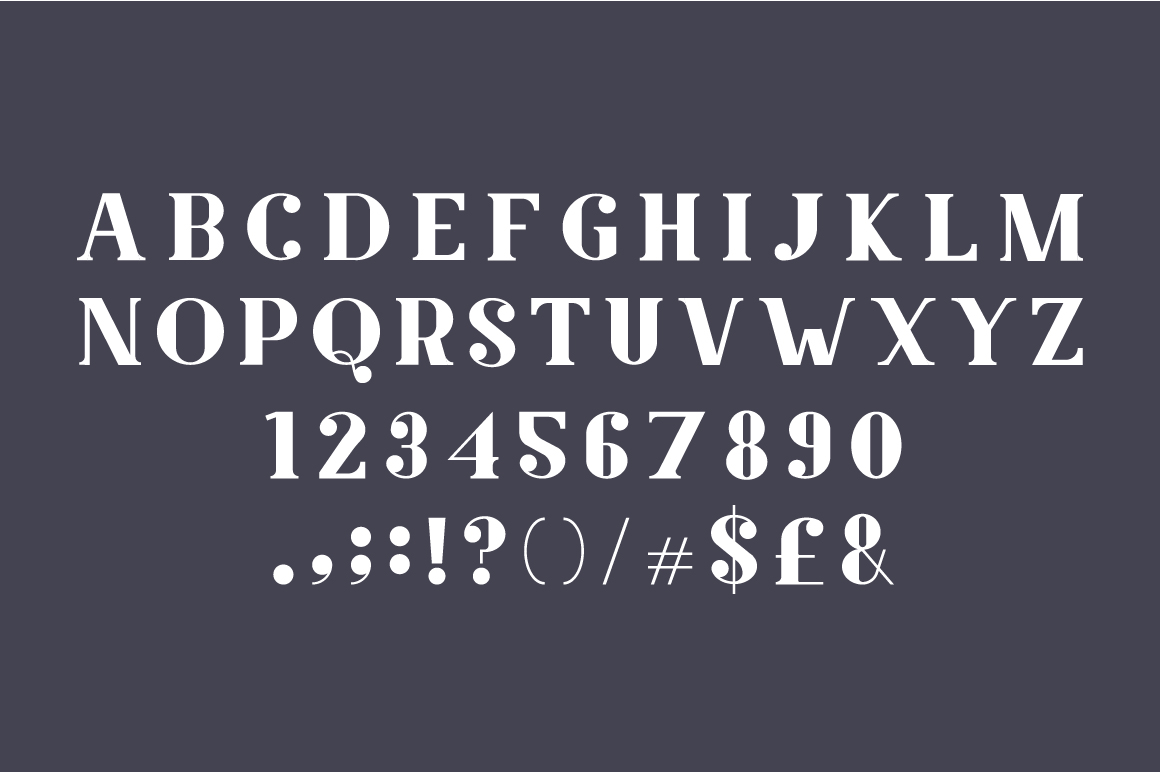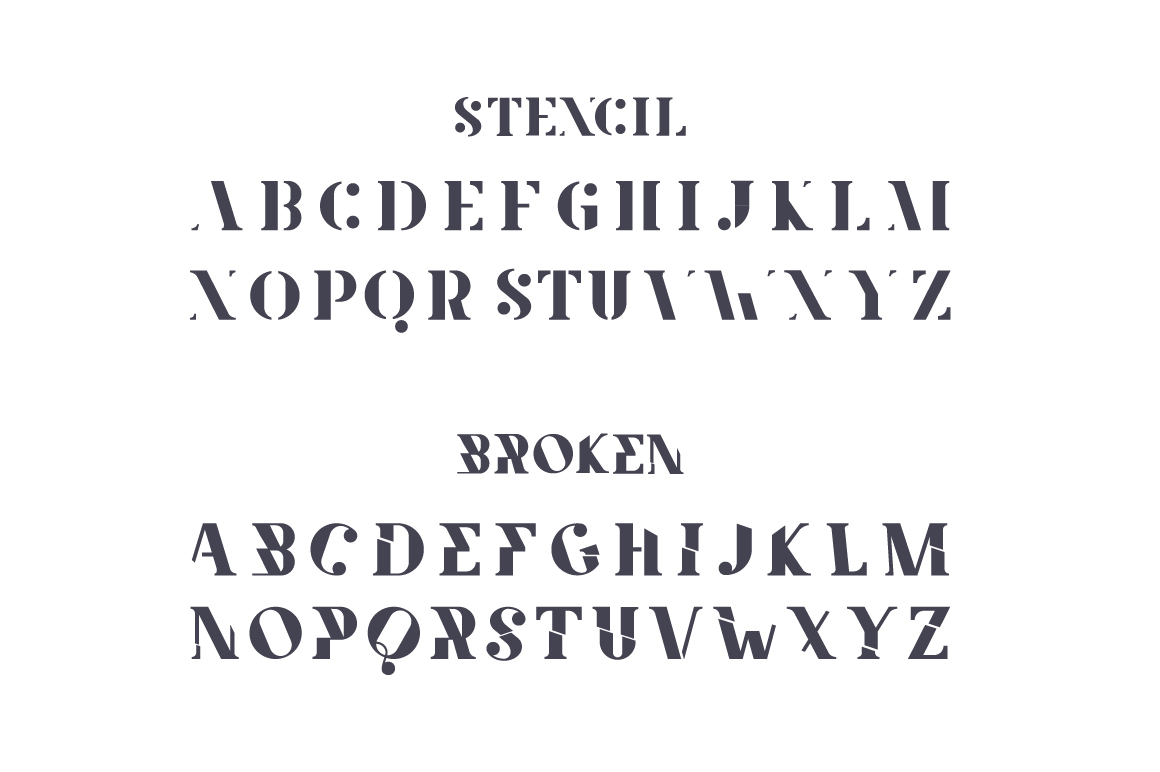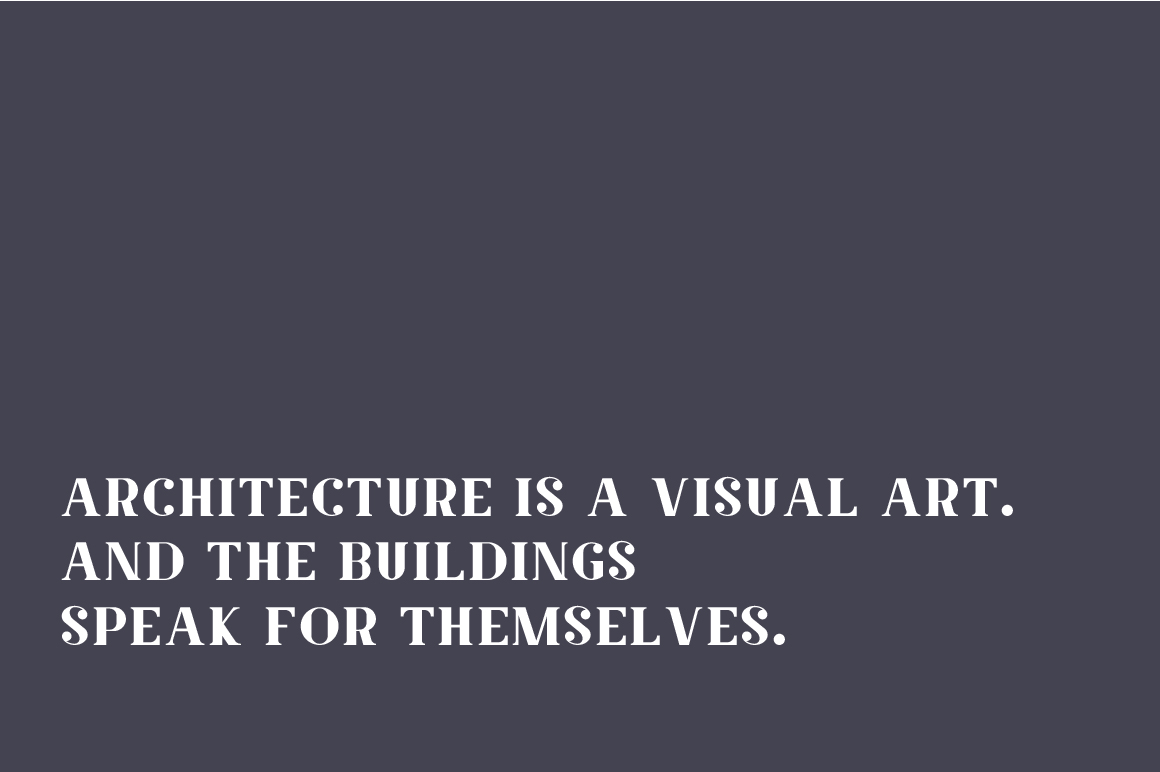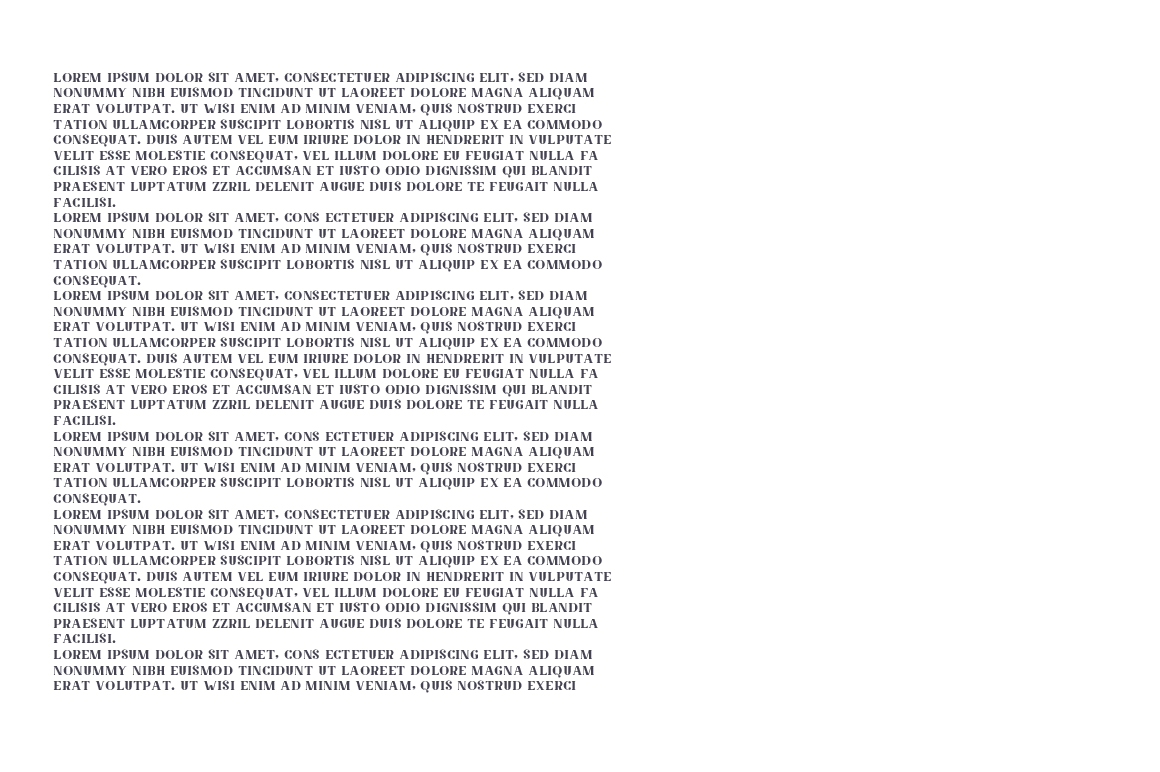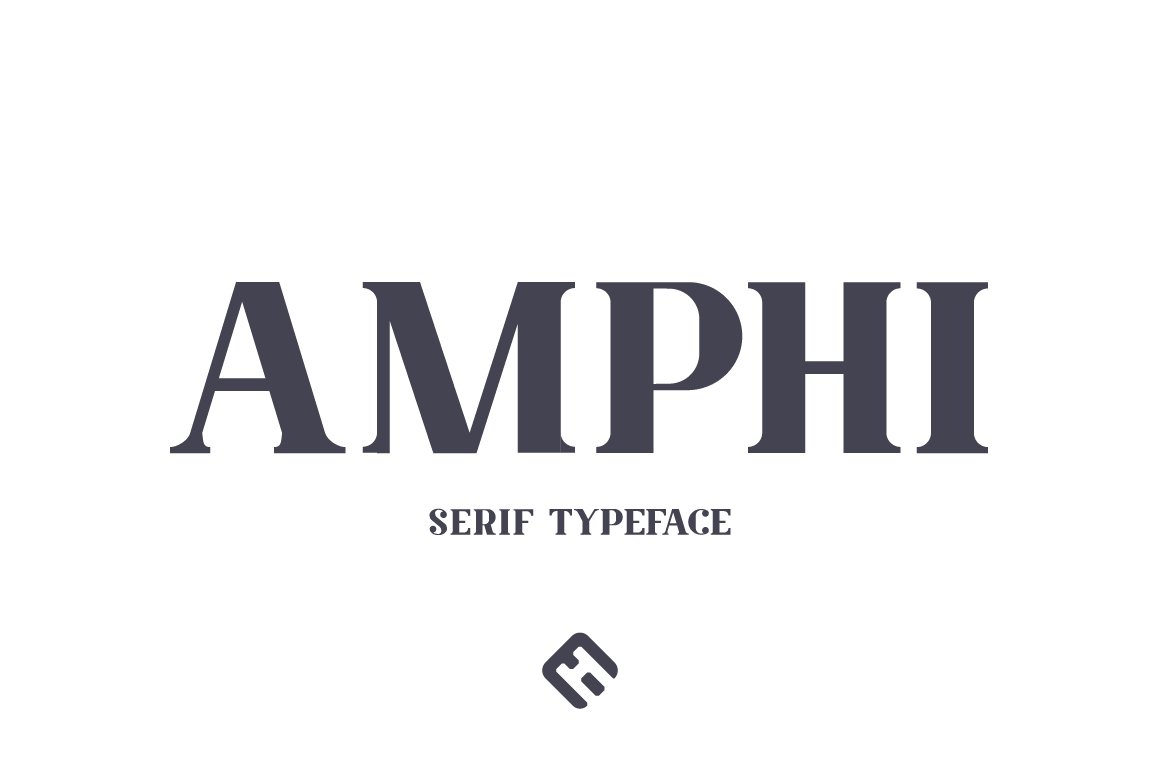
Discovering the Power of Amphi Font
As a designer, there’s no feeling quite like the thrill of the blank page, waiting to be filled with the perfect font. It’s a moment of pure creative freedom, where the possibilities are endless and the only limit is your imagination. And for many designers, that perfect font is Amphi Font – a bold, sturdy serif typeface that’s been inspired by the grandeur of ancient Roman architecture.
With its three unique styles – regular, stencil, and broken – Amphi Font offers a wealth of creative possibilities for designers looking to add some visual interest to their work. Whether you’re working on a historical reenactment, a modern-day cityscape, or anything in between, Amphi Font is the perfect tool to help you bring your vision to life.
For designers who value versatility, Amphi Font is a valuable addition to any font library. Its classic style and bold lines make it a standout choice for projects where you need to convey confidence and authority.
Key Features of Amphi Font
- Font Family: Amphi Font is a multi-script typeface family, designed to support various languages including Latin, Cyrillic, and Greek scripts.
- Unique Characteristics: Amphi Font features a unique blend of modern and traditional design elements, making it suitable for a wide range of applications, from formal to informal contexts.
- Font Styles: Amphi Font includes a range of font styles, including Regular, Italic, Bold, and Bold Italic, providing flexibility and versatility in its usage.
Amphi Font Review
As a designer, I had high hopes for Amphi Font, and overall, it’s a solid choice for projects that require a fun, approachable vibe. Here’s what I like:
- ✨ Unique personality: Amphi Font has a quirky charm that’s hard to find in more generic fonts.
- ✨ High legibility: Despite its playful nature, Amphi Font is surprisingly easy to read, even at smaller sizes.
- ✨ Versatility: It comes in a range of weights and styles, making it suitable for everything from headlines to body text.
However, there are a few limitations I’d like to point out:
- ⚠️ Limited polish: While Amphi Font has a certain je ne sais quoi, it can sometimes feel a bit rough around the edges.
- ⚠️ Limited language support: If you’re working on a multilingual project, you might find that Amphi Font doesn’t have the same level of support as more established fonts.
Overall, I think Amphi Font is a great choice for designers who want to add a bit of whimsy to their projects. While it may not be perfect, it’s a fun and approachable font that’s sure to leave a lasting impression.
Getting the Most Out of Amphi Font
Amphi Font is a versatile font that can be used in a variety of contexts. To get the most out of it, try using it for:
- Headings and titles: Amphi Font’s bold and playful style makes it perfect for headings and titles.
- Body text: Amphi Font’s clean and legible style makes it suitable for body text.
- Logos and branding: Amphi Font’s unique style can be used to create distinctive logos and branding.
- Use Amphi Font to create the sea creatures’ names or titles in a circular or wavy pattern.
- Combine Amphi Font with hand-drawn illustrations to create a mixed-media look.
- Experiment with different Amphi Font styles to create a sense of hierarchy and emphasize certain sea creatures.
- Use Amphi Font to create a title or subtitle that wraps around the journal cover, mimicking the curves of the ocean.
- Combine Amphi Font with abstract ocean-inspired patterns to create a cohesive look.
- Experiment with different Amphi Font styles to create a sense of depth and dimension.
Project 2: Underwater Journal Covers
Design a set of journal covers that transport users to an underwater world. The Amphi Font will add an air of mystery and adventure to the designs.
Project 3: Marine Conservation Posters
Create eye-catching posters that raise awareness about marine conservation. The Amphi Font’s bold and playful style will grab attention and convey a sense of urgency.